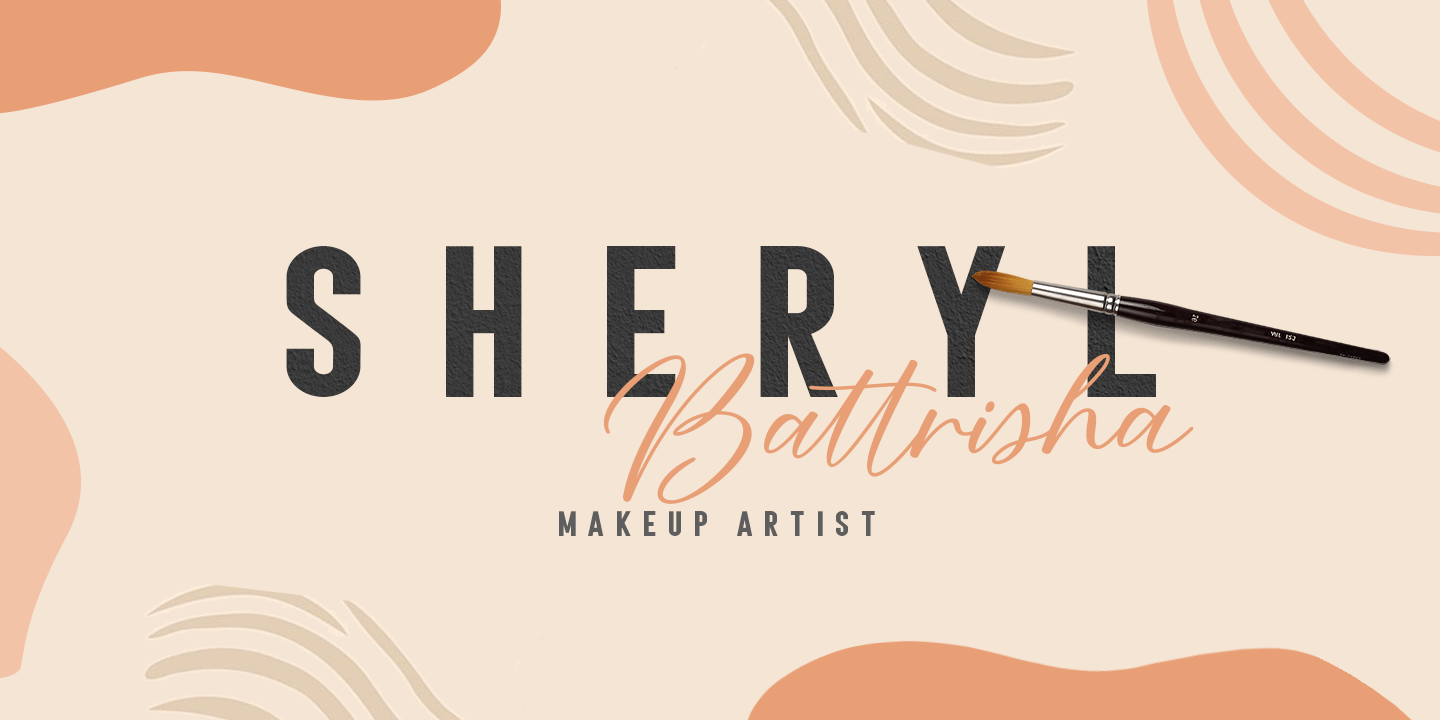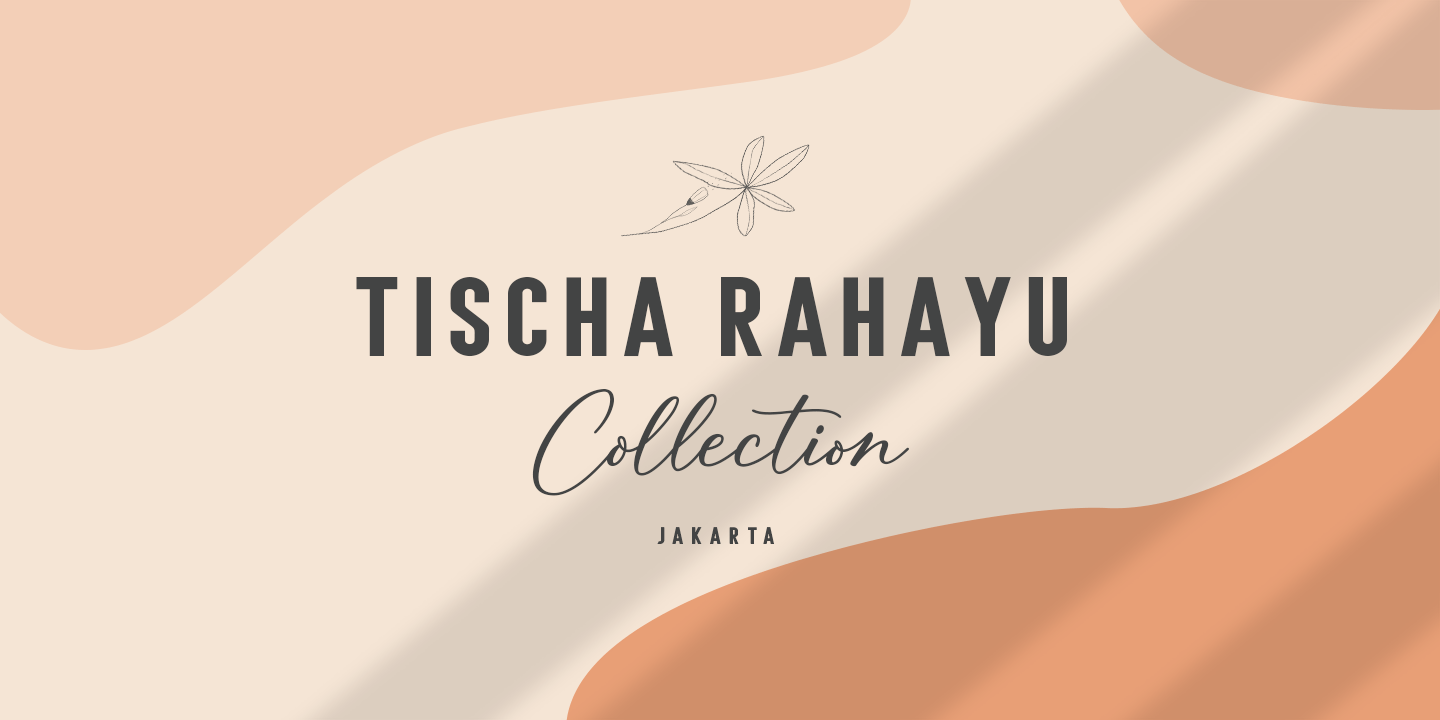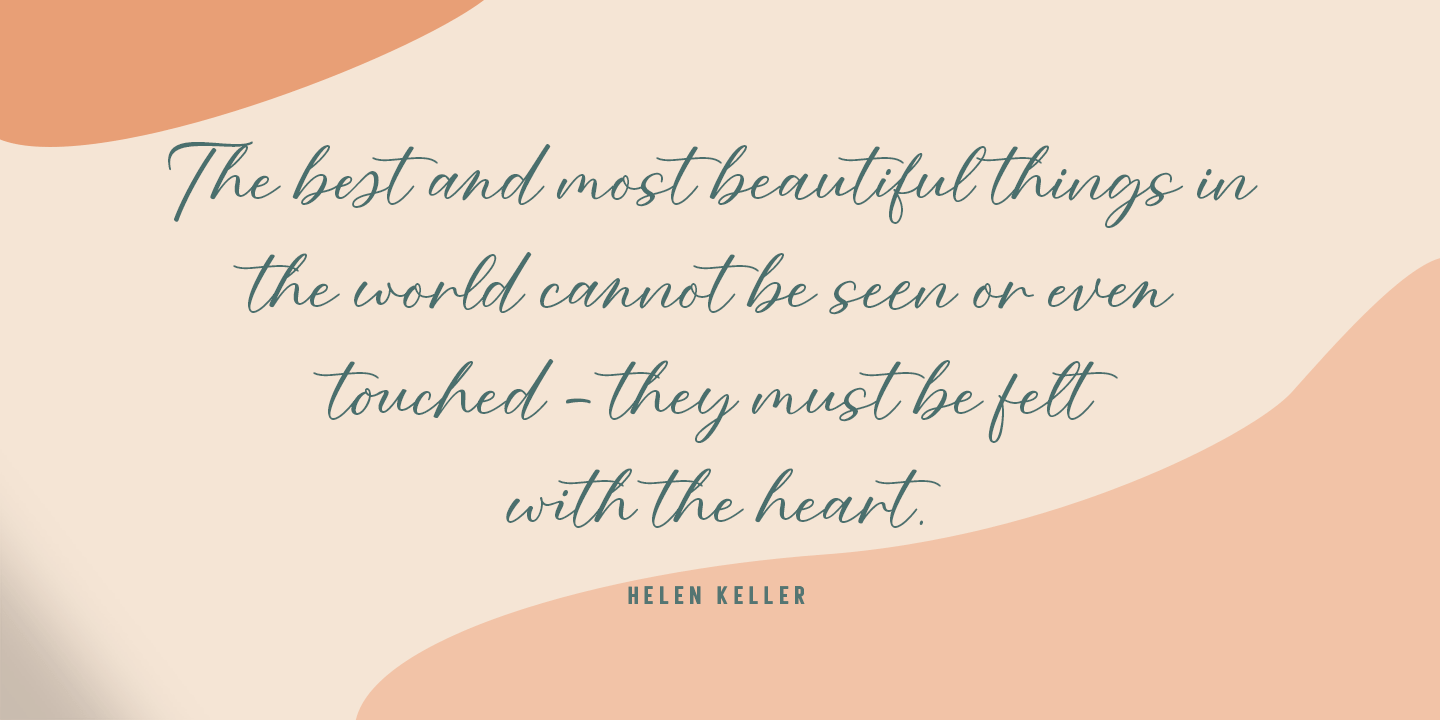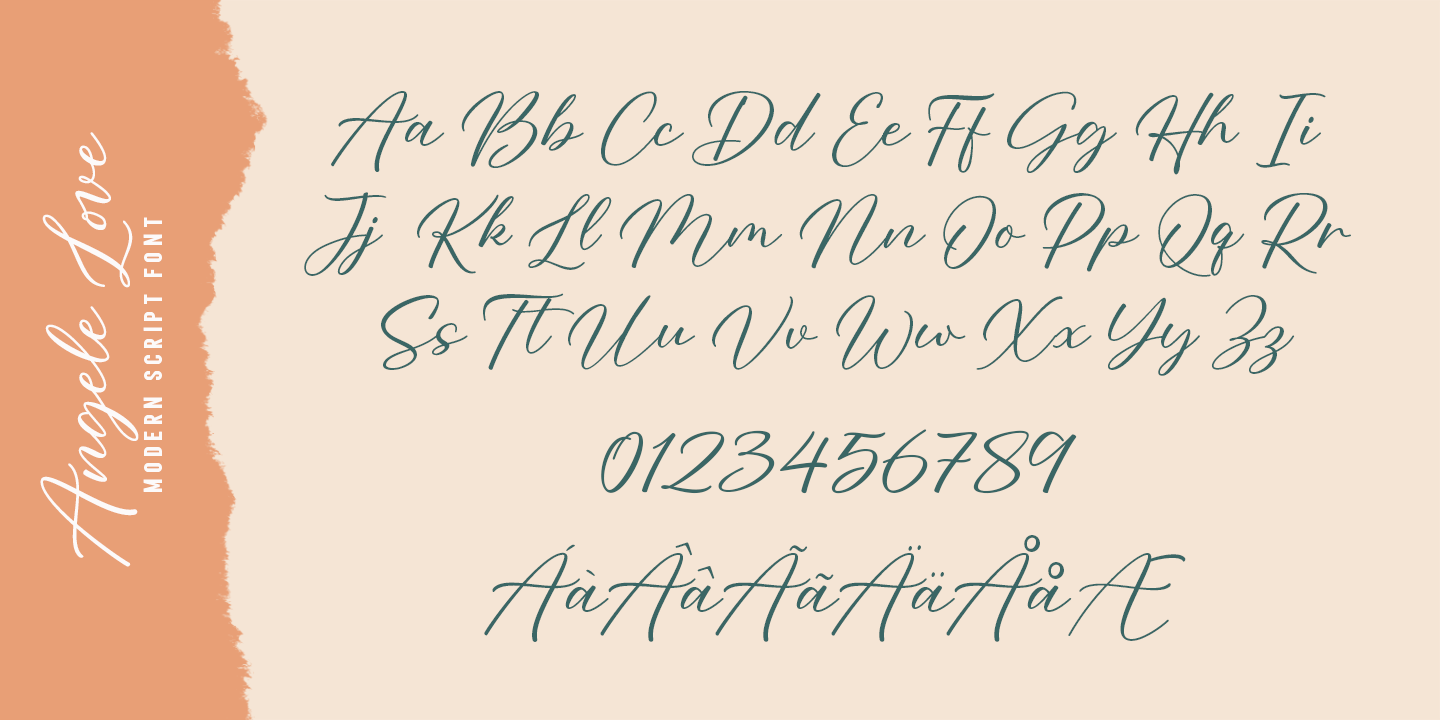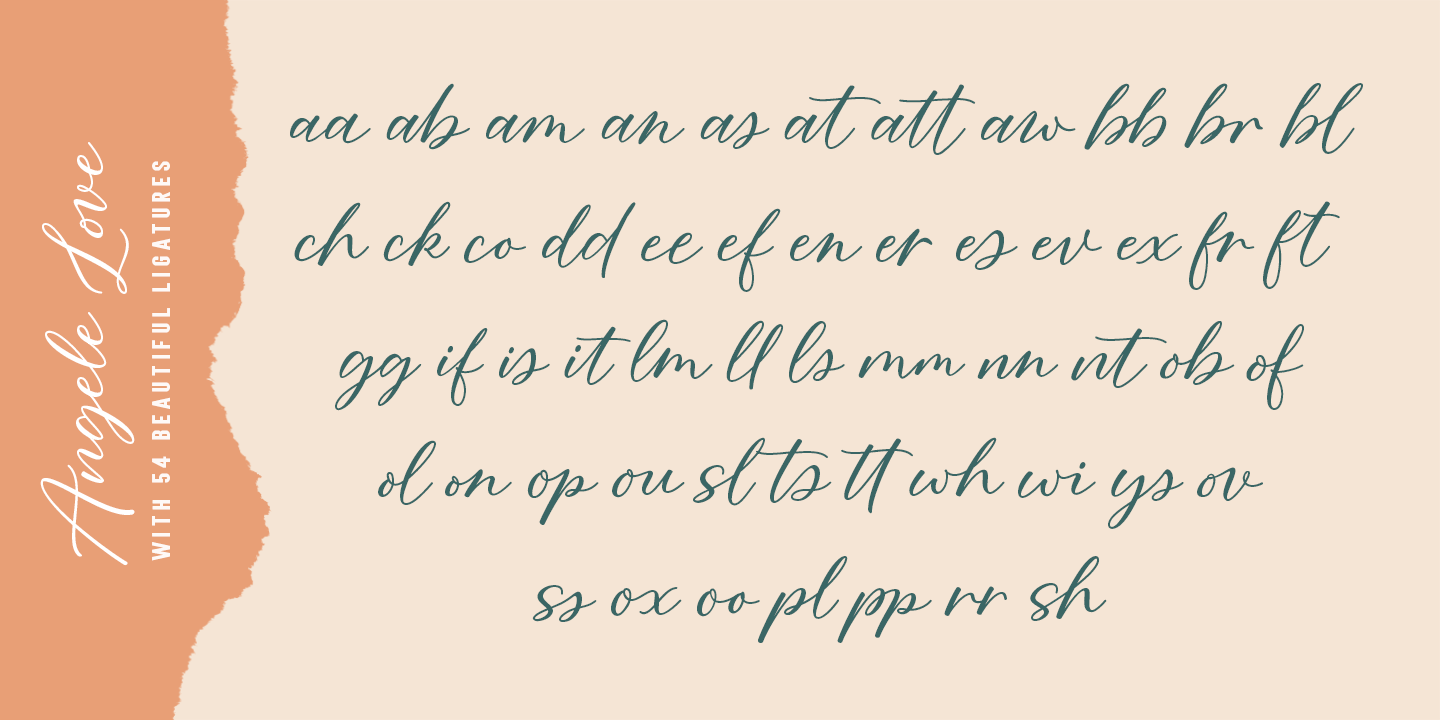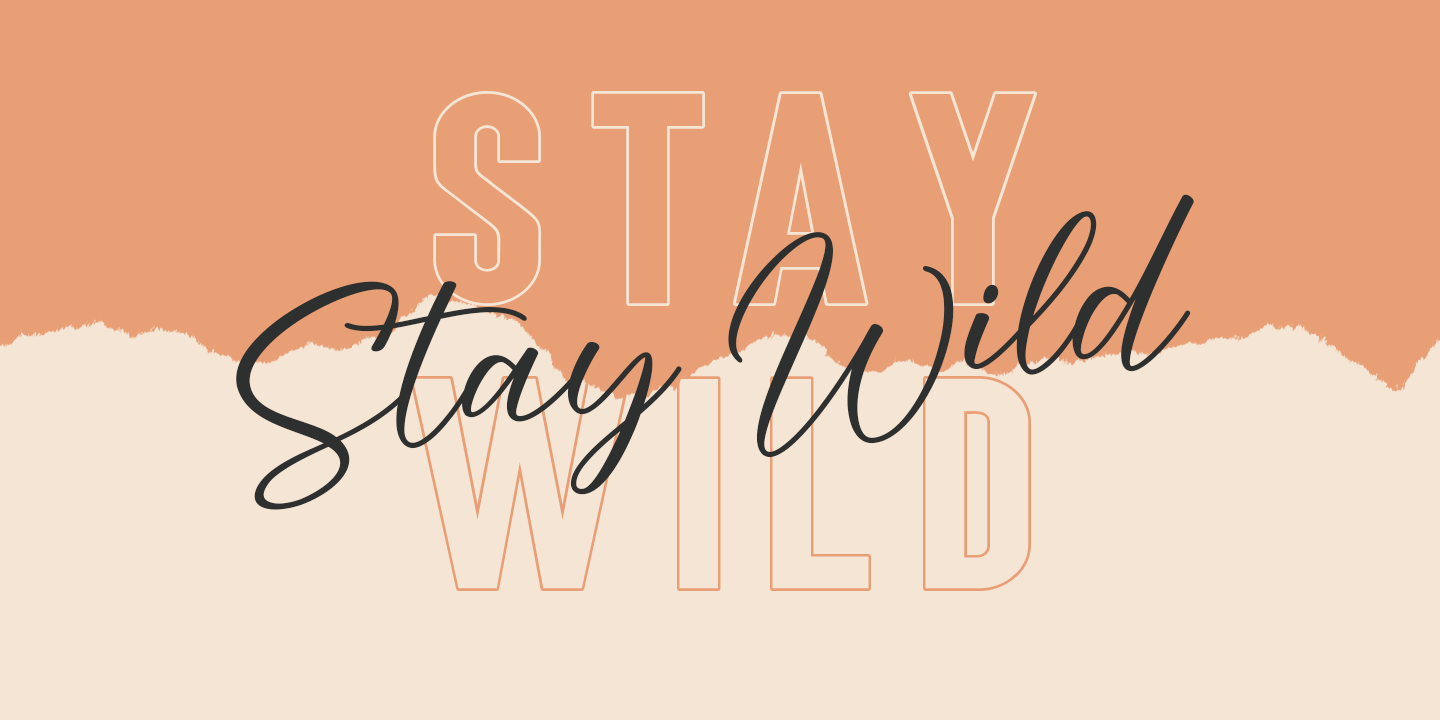
Angela Love Script
Angela Love Script is modern script that is perfect for photography, branding, signature. It is beautiful and classy for all your projects.
This font has given PUA code (specially coded fonts) so that all the alternate characters can easily be accessed in full by a craftsman or designer.